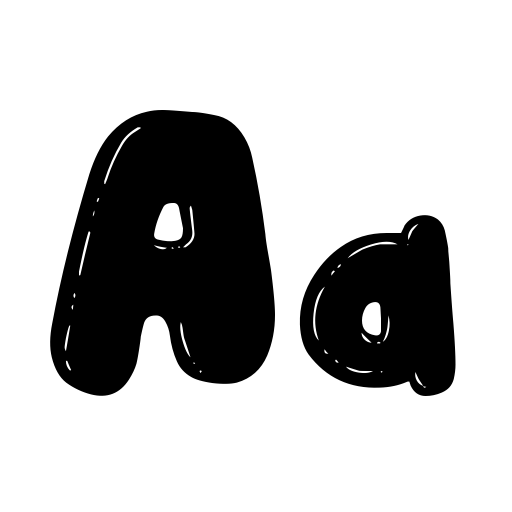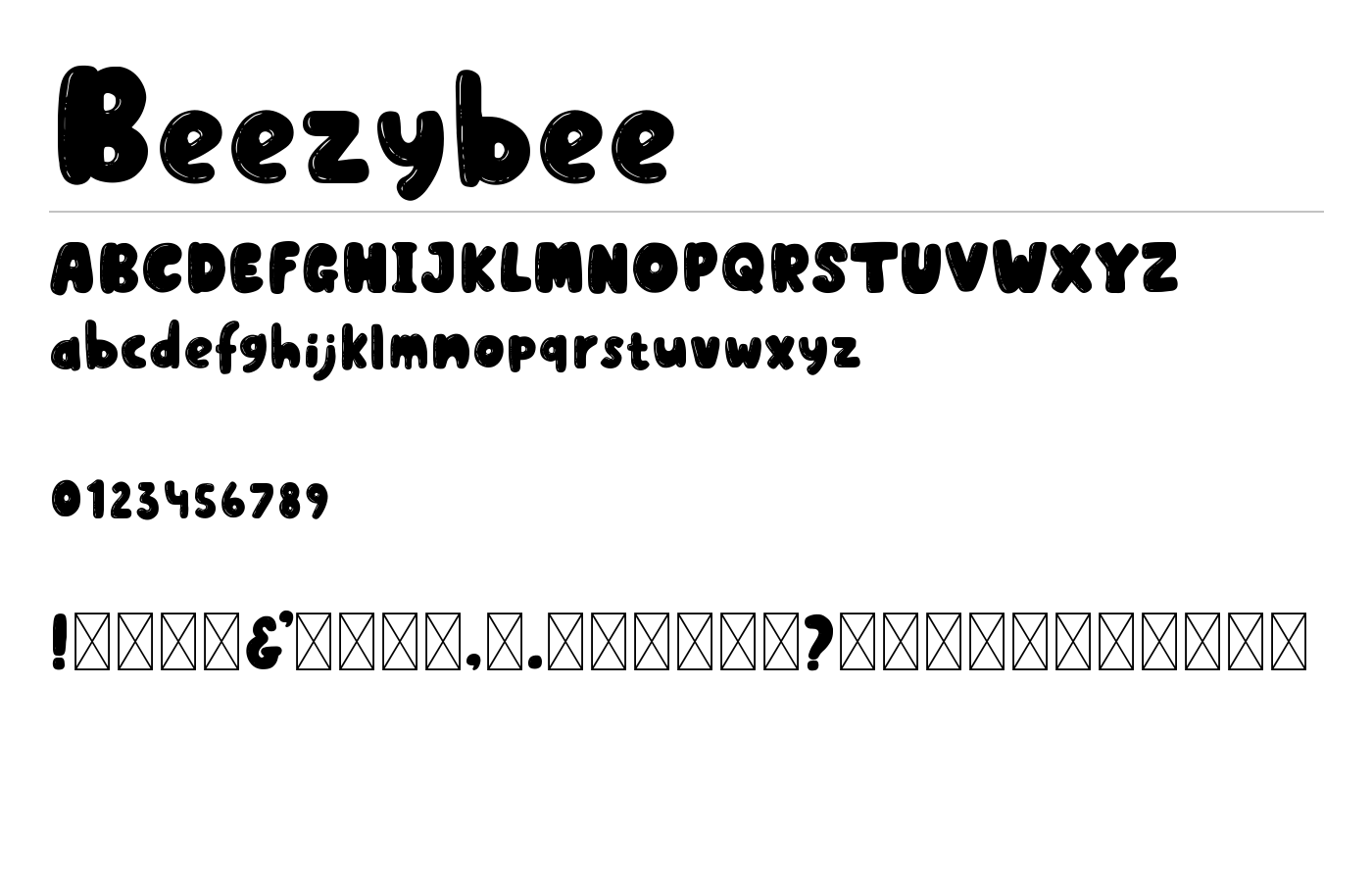
Beezybee is a playful, bold sans serif font with rounded, chunky letterforms that give off a fun and friendly vibe. Its casual style and thick strokes make it perfect for kids’ products, informal branding, and eye-catching headlines where a lively and approachable feel is needed. This font works best in creative, lighthearted contexts that want to communicate warmth and cheerfulness.
Beezybee Font
About Beezybee Font